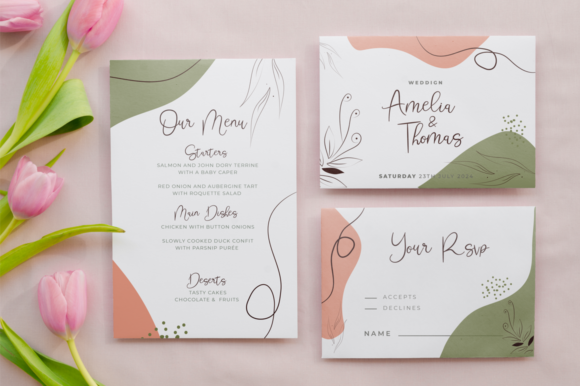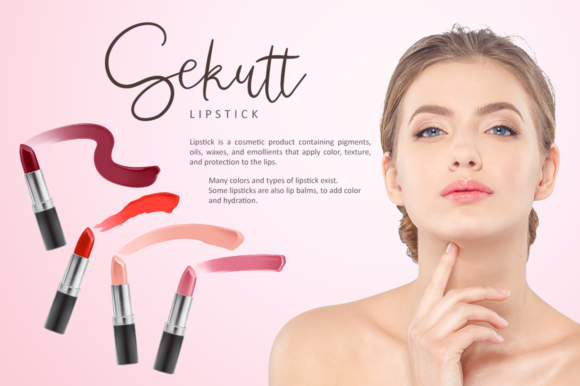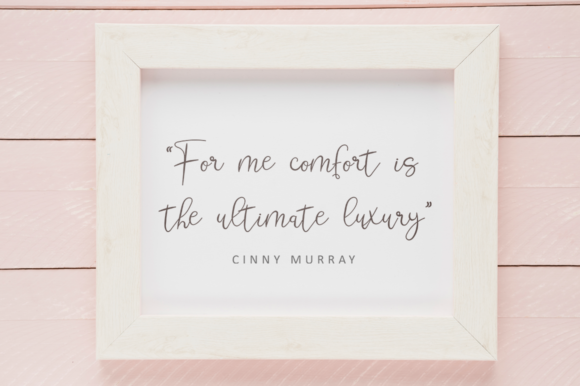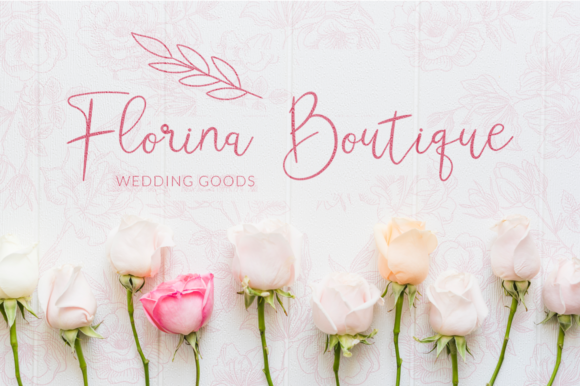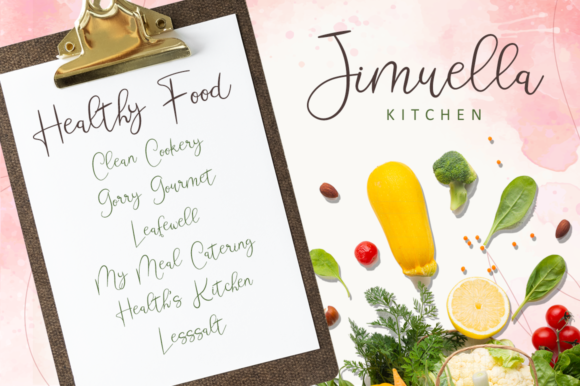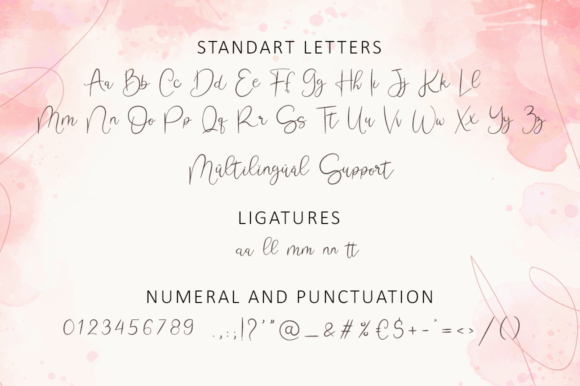
Introduction to Jimuella Font
Remember that moment when you were working on a creative project and everything just came together? The colors, the typography, the overall aesthetic – it was like magic. For designers, that feeling is what drives us to keep pushing the boundaries of our craft. And for those who want to add a touch of elegance to their designs, the Jimuella Font is a game-changer.
This beautiful handwritten font is perfect for creating high-quality designs that stand out from the crowd. With its transparent background and incredibly distinct style, the Jimuella Font is a valuable resource for any designer looking to add a personal touch to their work. Whether you’re working on a branding project or a creative campaign, this font is sure to make your designs shine.
Key Features of Jimuella Font
- High-quality, elegant design suitable for creative projects and design resources.
- Features a transparent background, making it ideal for overlaying on images or using as a design element.
- Includes a range of weights and styles, allowing for versatility in your design projects.
Honest Review: Jimuella Font
As a designer, I’m always on the lookout for high-quality design resources to enhance my creative projects. The Jimuella Font has caught my attention, and I’m excited to share my honest review with you.
- ✨ Unique and elegant design style that adds a touch of sophistication to any project.
- ✨ High quality font that’s perfect for creative projects requiring a professional and refined look.
- ✨ Transparent background option allows for seamless integration into various design environments.
- ⚠️ Limited font sizes and styles available, which might not be ideal for designers requiring a wide range of options.
- ⚠️ May not be suitable for projects requiring a bold or playful font style.
Overall, I’m impressed with the Jimuella Font’s unique design and high quality. While it may have some limitations, it’s an excellent choice for designers working on creative projects requiring a refined and sophisticated look.
Getting the Most Out of Jimuella Font
To get the most out of the Jimuella Font, be sure to experiment with different font sizes, colors, and styles. You can also use the font in combination with other design elements, such as images and graphics, to create a unique and eye-catching design. Additionally, consider using the font with a transparent background to create a modern and sleek look.
Common Use Cases for Jimuella Font
The Jimuella Font is a popular choice for a variety of creative projects, including graphic design, digital art, and even web design. It’s particularly useful for creating high-quality designs with a transparent background, making it a great choice for designers who want to create modern and sleek designs.